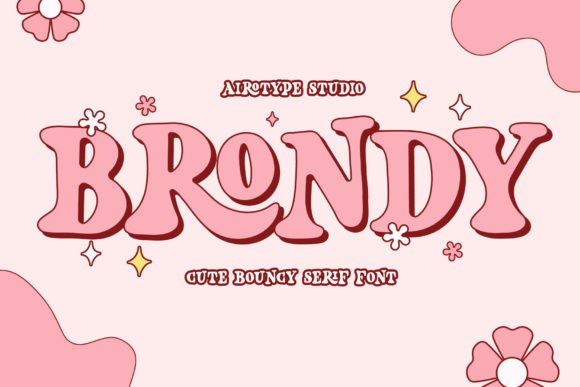
Brondy Font: The Cute Retro Serif Font for Your Design Needs
Are you looking for a font that can add a touch of vintage charm to your designs? Look no further than Brondy Font, a cute retro serif font that is perfect for a variety of design projects. In this article, we’ll take a closer look at Brondy Font, its features, and how you can use it to create stunning designs.
What is Brondy Font?
Brondy Font is a retro serif font that is designed to bring a fun and playful touch to your designs. It has a vintage, groovy, and fun style that is reminiscent of the 60s and 70s. The font is perfect for designers who want to create designs that are cute, playful, and eye-catching.
Key Features of Brondy Font
- Cute and Retro Style: Brondy Font has a unique and adorable design that is perfect for designs that need a touch of vintage charm.
- Ligatures: The font comes with ligatures for uppercase letters, giving you more options for designing.
- Vintage and Groovy Style: The font has a fun and playful style that is reminiscent of the 60s and 70s.
- Fun and Playful: Brondy Font is perfect for designers who want to create designs that are fun and playful.
Use Cases for Brondy Font
Brondy Font is a versatile font that can be used for a variety of design projects. Here are some use cases where Brondy Font is particularly effective:
- Back to School Design: Brondy Font is perfect for creating back to school designs, such as flyers, posters, and social media graphics.
- Kids Design: The font is great for designing materials for kids, such as children’s books, activity sheets, and educational resources.
- Birthday Invitation: Brondy Font is a great choice for creating birthday invitations, party decorations, and other celebration materials.
- Summer Design: The font is perfect for creating summer-themed designs, such as beach posters, summer camp flyers, and vacation brochures.
- T-Shirt Design: Brondy Font is great for designing t-shirts, hoodies, and other apparel.
- Crafting: The font is perfect for crafting projects, such as making stickers, washi tape, and other DIY materials.
- Sublimation: Brondy Font can be used for sublimation projects, such as creating custom mugs, water bottles, and other products.
Why Choose Brondy Font?
There are many reasons why you should choose Brondy Font for your design projects. Here are a few:
- Unique and Adorable Design: Brondy Font has a unique and adorable design that will make your designs stand out.
- High-Quality Font: The font is high-quality and comes with ligatures for uppercase letters, giving you more options for designing.
- Versatile: The font is versatile and can be used for a variety of design projects.
Tips for Using Brondy Font
Here are some tips for using Brondy Font:
- Use it for Headings and Titles: Brondy Font is perfect for headings and titles, as it adds a touch of vintage charm to your designs.
- Experiment with Colors: The font looks great in a variety of colors, so experiment with different colors to find the one that works best for your design.
- Pair it with Other Fonts: Brondy Font can be paired with other fonts to create a unique and interesting design.
- Use it for Digital and Print Designs: The font can be used for both digital and print designs, making it a versatile choice.
Brondy Font is a cute retro serif font that is perfect for designers who want to add a touch of vintage charm to their designs. With its unique and adorable design, ligatures for uppercase letters, and versatile use cases, Brondy Font is a great choice for a variety of design projects. Whether you’re designing for back to school, kids, birthday invitations, or summer designs, Brondy Font is a great option.